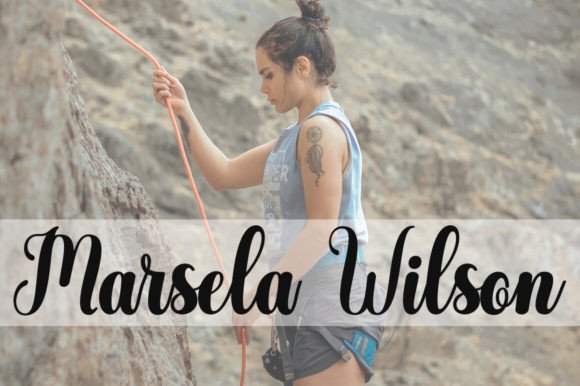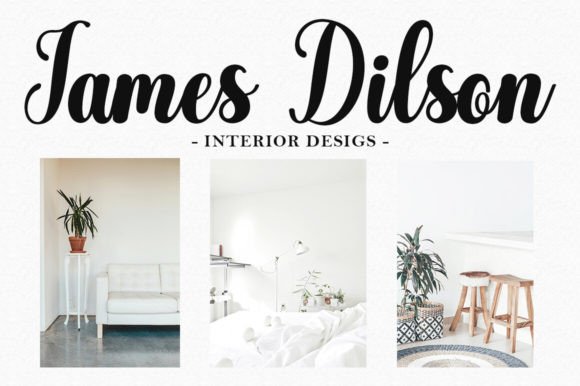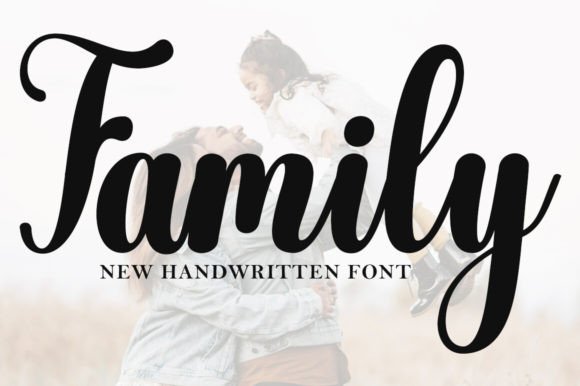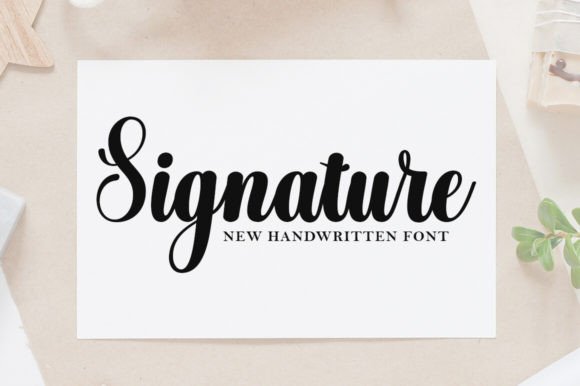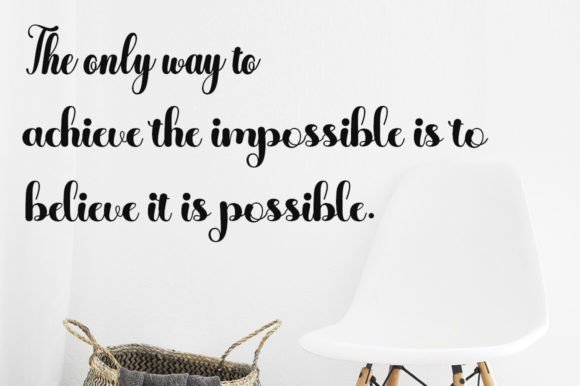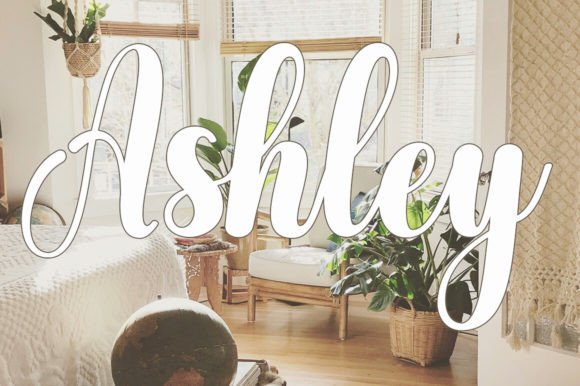
Introducing Delight Font: Elevate Your Designs with a Stylish Handwritten Touch
Are you looking for a font that can add a touch of elegance and sophistication to your designs? Look no further than Delight Font, a gorgeous and bold handwritten font that’s perfect for headlines, logotypes, and more. With its strong, confident, and dynamic style, Delight Font is sure to make your designs stand out from the crowd.
What is Delight Font?
Delight Font is a carefully crafted handwritten font that’s designed to give your designs a stylish and nostalgic touch. Its bold and confident style makes it perfect for use in headlines, titles, and logotypes, while its dynamic feel adds a sense of energy and movement to your designs.
Key Features of Delight Font
- Bold and Confident Style: Delight Font features a bold and confident style that’s perfect for making a statement in your designs.
- Handwritten with Love: This font is carefully crafted with a handwritten touch, giving it a unique and personal feel.
- Nostalgic Character: Delight Font has a nostalgic character that adds a touch of warmth and personality to your designs.
- Dynamic and Energetic: The font’s dynamic feel adds a sense of energy and movement to your designs, making them more engaging and attention-grabbing.
- Multipurpose: Delight Font is perfect for use in a variety of design projects, from headlines and logotypes to posters and packaging.
Why Choose Delight Font?
There are many reasons why Delight Font stands out from the crowd. Here are just a few:
- Unique Style: Delight Font has a unique and distinctive style that’s sure to set your designs apart.
- Easily Readable: Despite its bold style, Delight Font is easily readable, making it perfect for use in headlines and titles.
- High-Quality: This font is crafted with high-quality and attention to detail, ensuring that it looks great in any design.
- Versatile: Delight Font is versatile and can be used in a variety of design projects, from digital to print.
How to Use Delight Font in Your Designs
Using Delight Font in your designs is easy. Here are a few tips to get you started:
- Headlines and Titles: Use Delight Font to create bold and eye-catching headlines and titles that grab attention.
- Logotypes and Branding: This font is perfect for use in logotypes and branding, adding a touch of personality and style to your brand.
- Posters and Flyers: Delight Font is great for use in posters and flyers, adding a bold and attention-grabbing touch to your designs.
- Packaging and Labels: Use this font to add a touch of style and personality to your packaging and labels.
Tips for Pairing Delight Font with Other Fonts
Pairing Delight Font with other fonts can create a unique and interesting look. Here are a few tips to keep in mind:
- Contrasting Fonts: Pair Delight Font with a contrasting font, such as a sans-serif or script font, to create visual interest.
- Complementary Fonts: Choose a font that complements Delight Font, such as a font with a similar style or feel.
- Experiment with Font Sizes: Experiment with different font sizes to create a visually appealing hierarchy of text.
Delight Font is a gorgeous and bold handwritten font that’s perfect for adding a stylish touch to your designs. With its strong, confident, and dynamic style, this font is sure to make your designs stand out from the crowd. Whether you’re a designer, craft, or DIY enthusiast, Delight Font is a great choice for any design project.